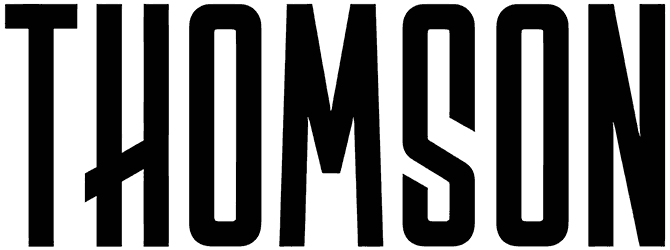
Thomson Font
Why don’t you make up for the artistic touch missing from your design with the nice vintage charm of Thomson as a retro font? It’s exactly what your typography needs to leave a great impression on your audience.
There’s just one thing wrong with it: the absence of lowercase. However, the two sets of capitals slightly differ from one another, so you’ll get 2 different styles of this condensed font to try in your barbershop logo, classic movie poster, and so on.